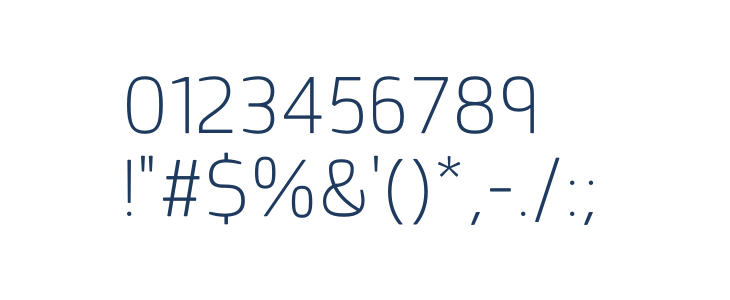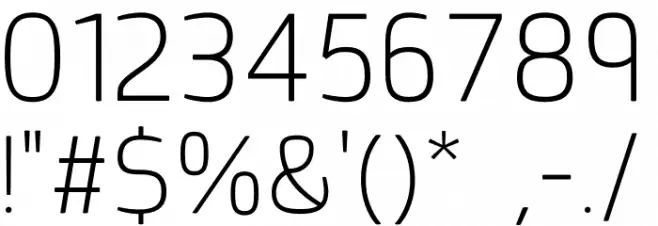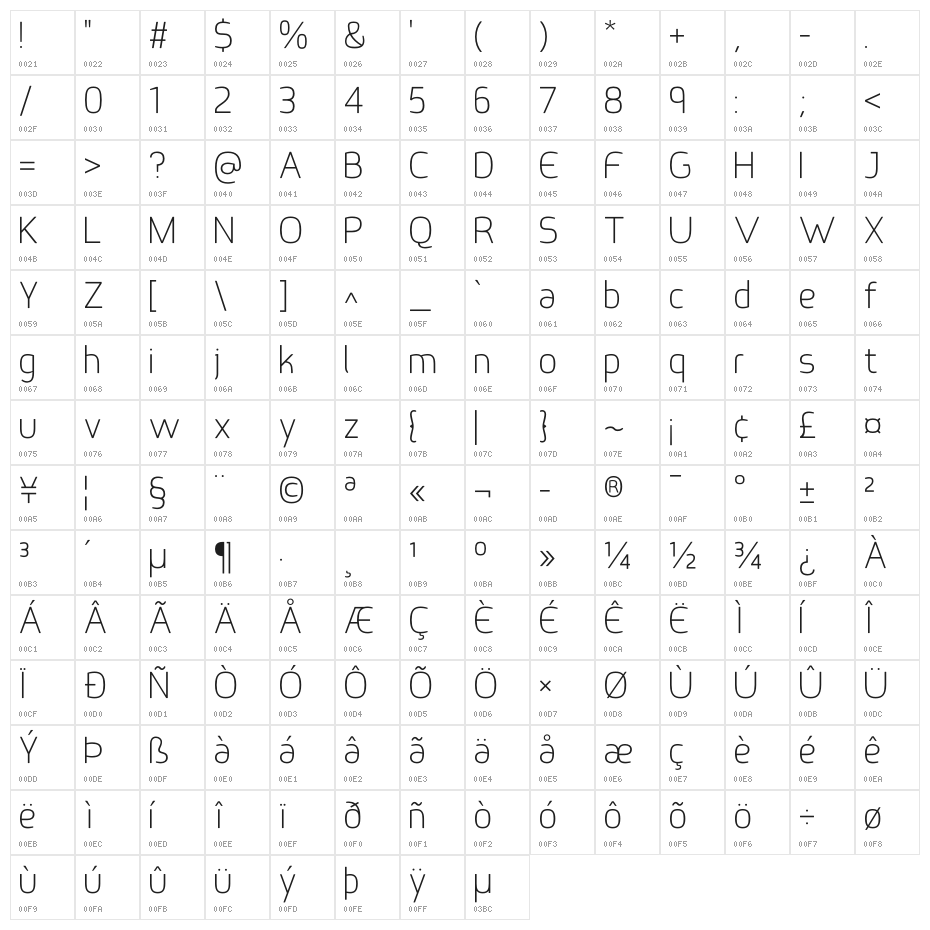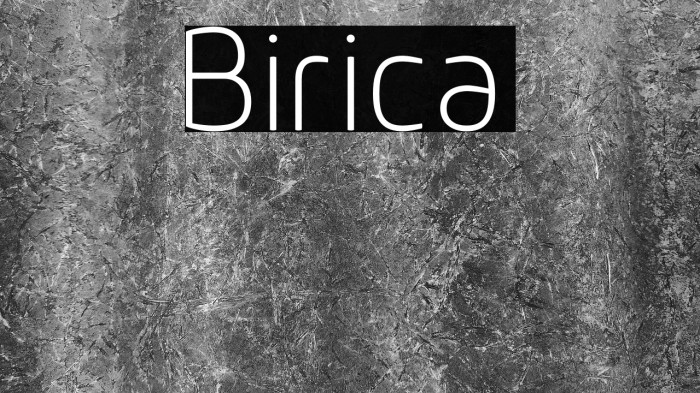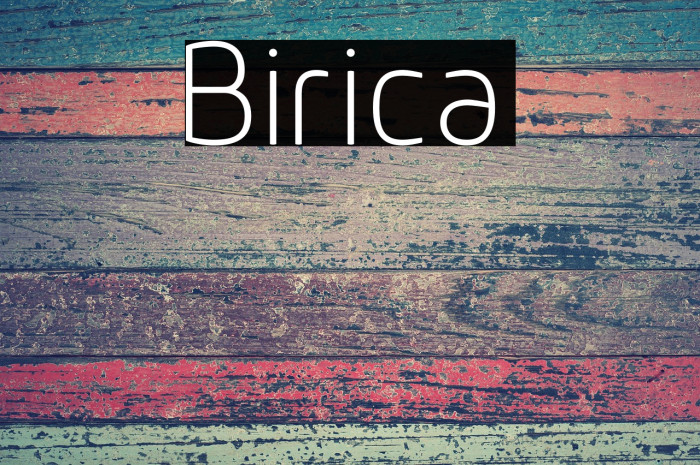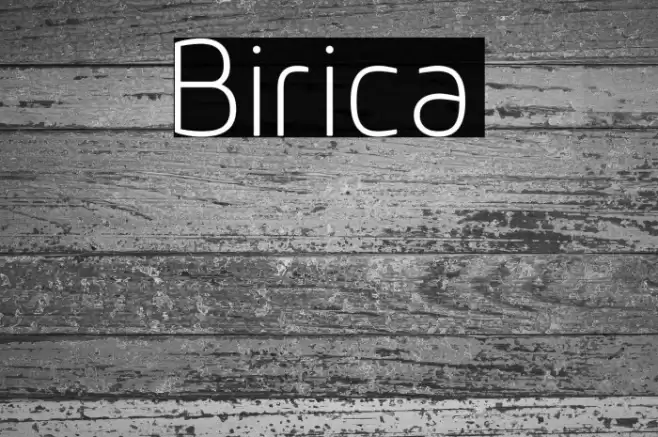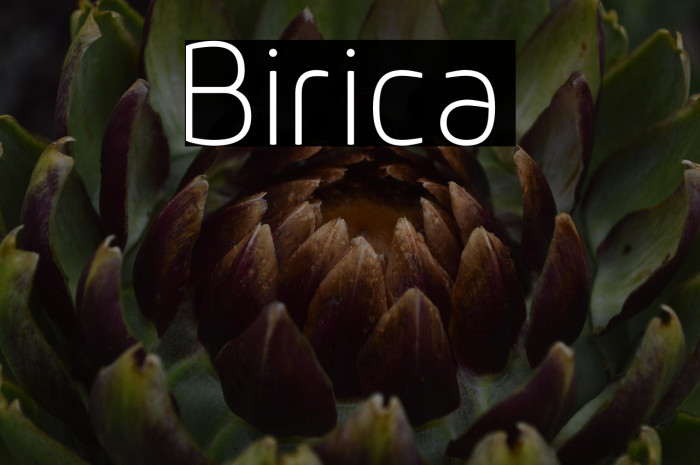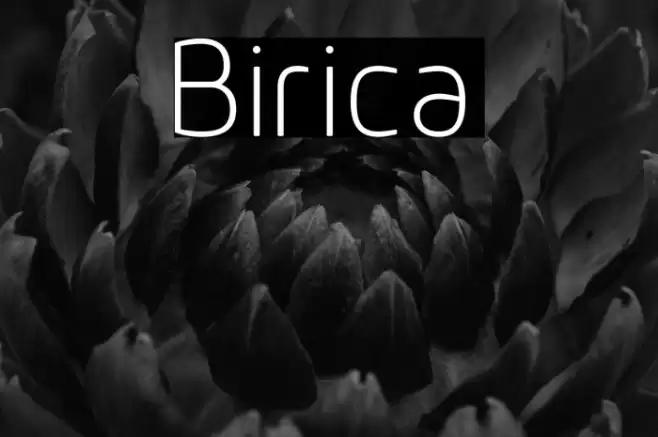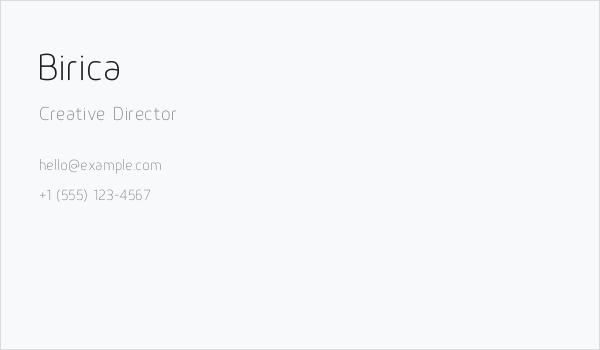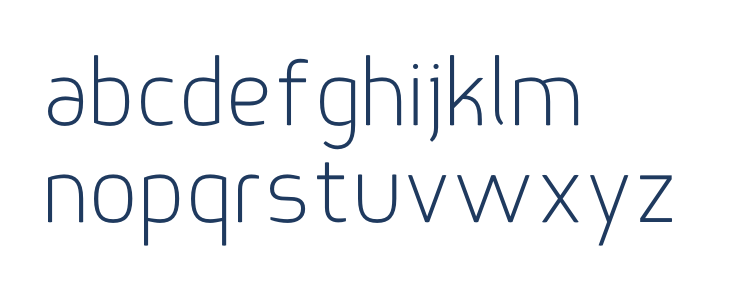
Birica Font
Birica Description
This font features a clean, geometric sans-serif style with a modern aesthetic. The characters are constructed with a uniform stroke width, giving it a sleek and minimalistic appearance. The uppercase letters are tall and slightly condensed, while the lowercase letters maintain a consistent height, contributing to a harmonious and balanced look. The numerals are clear and legible, making them suitable for various applications. Special characters are well-integrated, maintaining the overall design consistency. This font is versatile, offering a contemporary feel that can enhance both digital and print media.